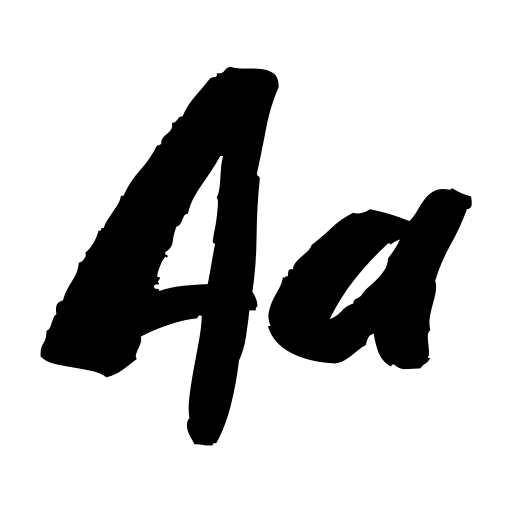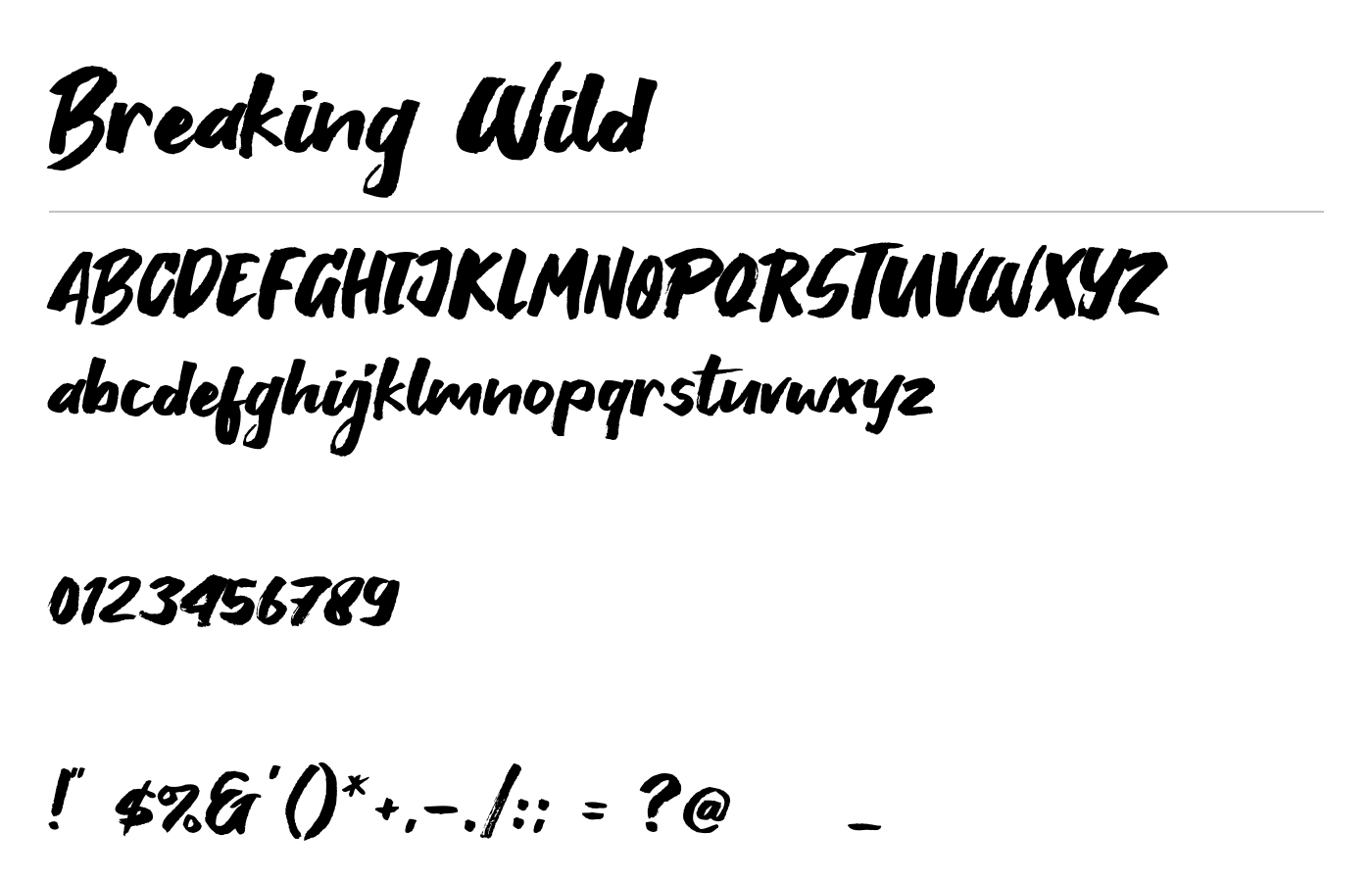
Breaking Wild is a bold, brush-script font with a strong, expressive character that feels dynamic and handcrafted. Its thick, uneven strokes and lively letterforms give it an energetic, wild vibe ideal for creative branding, posters, and headlines that want to convey a sense of spontaneity and edgy personality. This font works best in designs looking for an informal yet impactful style that stands out with its artistic flair.
Breaking Wild Font
About Breaking Wild Font
| Font family | Breaking Wild Font |